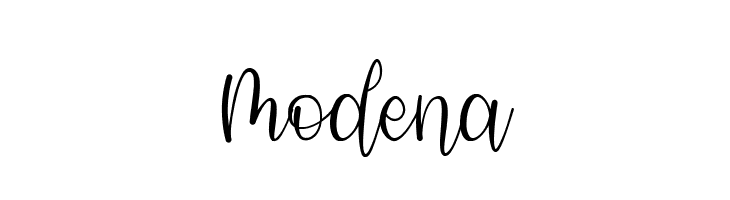
A graceful and elegant script font with flowing, interconnected letterforms.
An elegant, cursive handwritten font with smooth, flowing strokes.
A dynamic, cursive font with a handwritten, calligraphic style.
A bold, expressive handwritten font with a modern, artistic style.
A lively and energetic handwritten font with fluid strokes.
An elegant script font with flowing, interconnected letters and a sophisticated style.
A playful, handwritten font with dynamic, fluid characters and a personal touch.
A playful, cursive font with a whimsical and feminine touch.
A flowing, cursive script font with elegant, connected strokes.
A delicate, flowing script font with elegant, interconnected strokes.